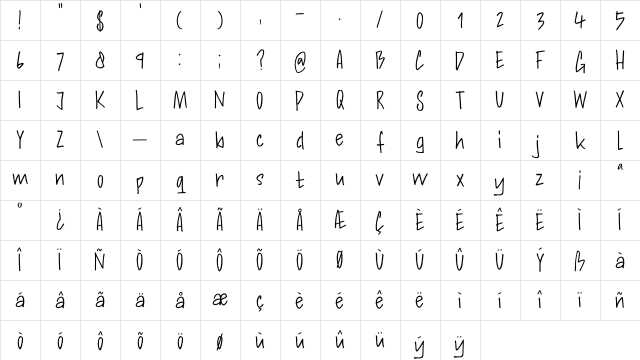
DK Andorra Script flows with the natural rhythm of handwritten lettering, making it ideal for designs that call for warmth and personal expression.
Font Pairing: Combine DK Andorra Script with a simple geometric sans for maximum contrast - the tension between flowing curves and clean structure is a classic typographic pairing.
Pro Tip: Use DK Andorra Script for short runs of text - names, titles, or taglines. Extended body copy in script faces tires the eye quickly.